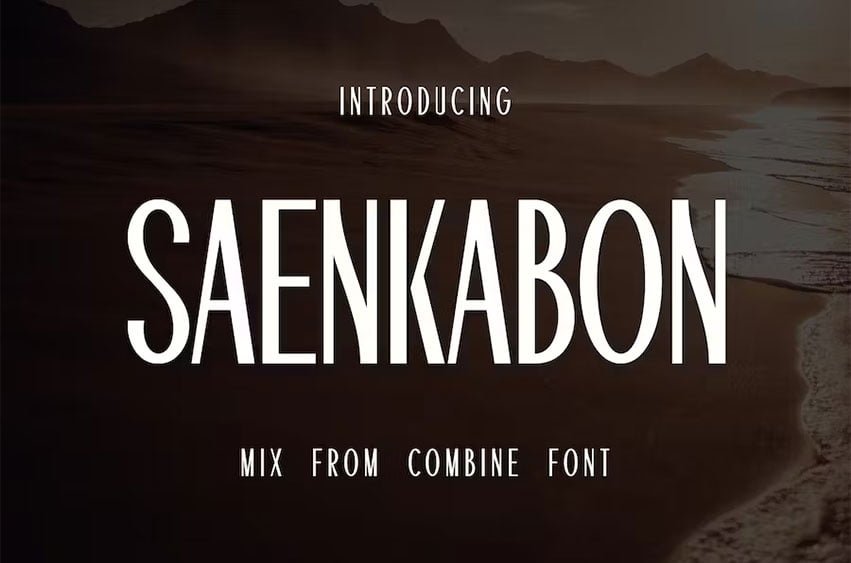
Saenkabon Font is a font formed from sans-serif thinking coupled with vintage mode and special characters to make it a unique font. work such as those related to creating bold and character titles is highly recommended. such as: Holidays in the fall / snow season. can be applied with tourist brochures / tickets in tourism tours according to the season.